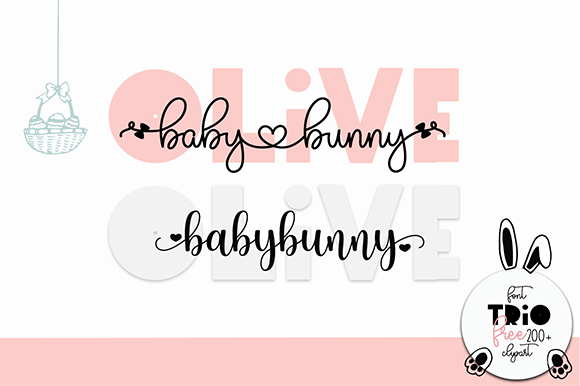
Olive and Baby Bunny
Seeking a charming and sophisticated font for your next project? Look no further than this elegant trio-style font, featuring a harmonious blend of sans serif and handwritten elements. Perfect for crafting unique and whimsical designs, this versatile font is ideal for letterheads, titles, stationery, and more.
With its delicate touch and refined aesthetic, this font is sure to add a touch of sophistication to any project. Whether you're working on a elegant invitation, a charming blog post, or a beautiful book cover, this trio-style font will help you create a visually stunning design that's all your own.
Plus, with PUA encoding, accessing the font's extensive range of glyphs and swashes is easy as can be! This means you'll have complete control over customizing your design to fit your unique vision. So why settle for an ordinary font when you can choose this extraordinary Olive Babybunny font?